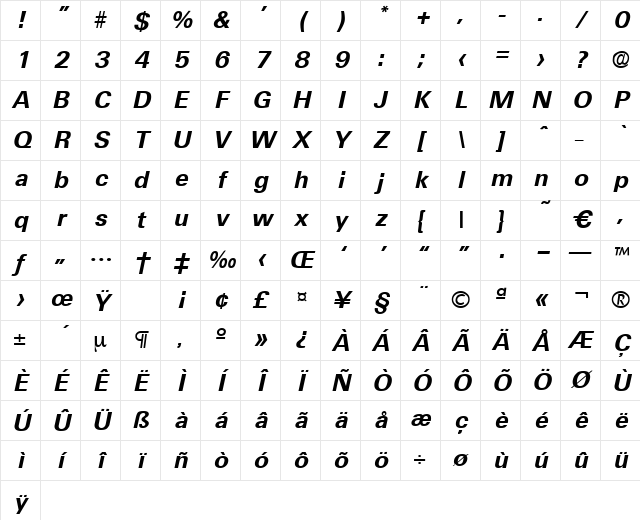
Ultimate-DemiBoldIta Regular
Design Context for Ultimate-DemiBoldIta
Ultimate-DemiBoldIta is a composed and adaptable typeface that performs quietly and consistently across a wide range of design contexts. Its bold stroke weight gives it real presence on the page.